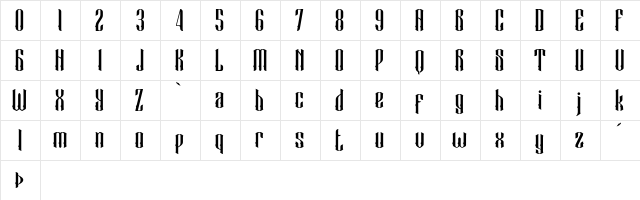
Black Cameo Demo Regular
| Designer | Kadek Adi Mahardika |
Design Context for Black Cameo Demo Typeface
Black Cameo Demo is a composed and adaptable typeface that performs quietly and consistently across a wide range of design contexts.